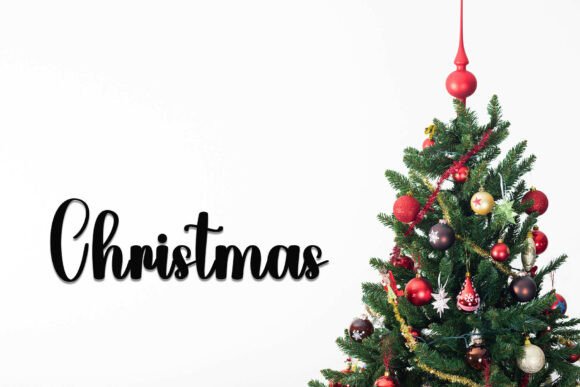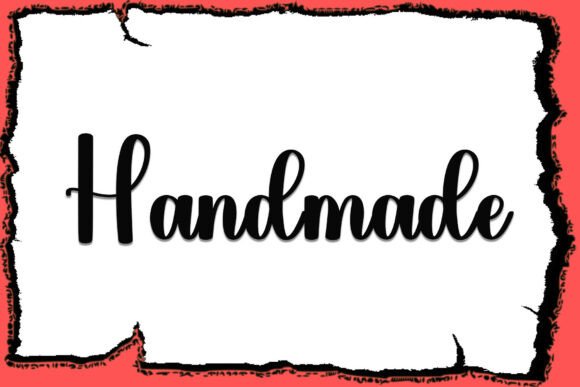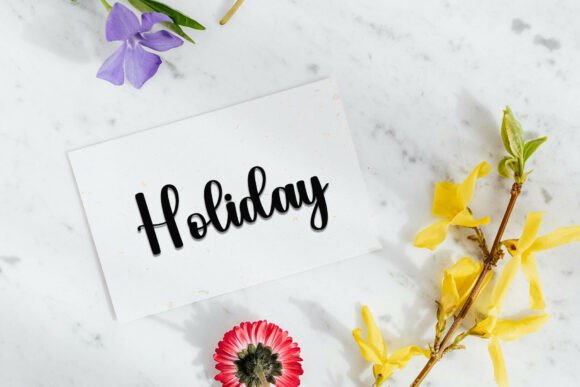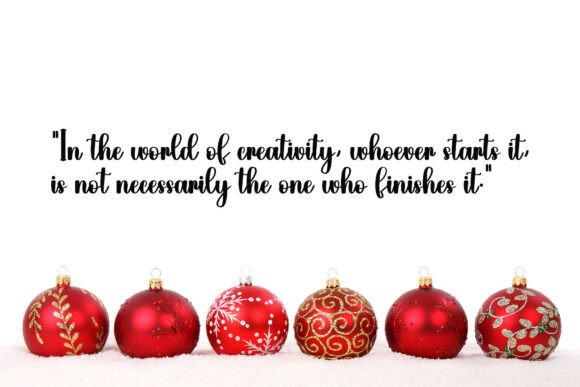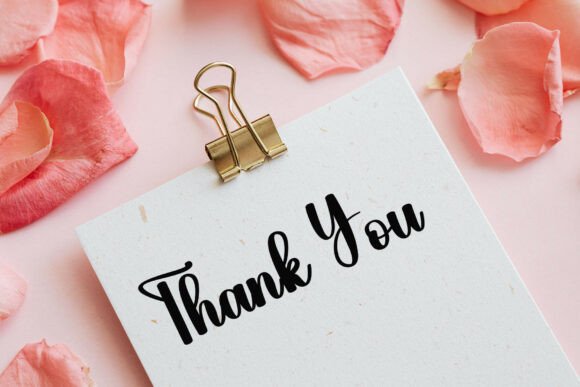
The Perfect Font for Your Next Design Project
Have you ever been scrolling through Pinterest, and a beautifully designed wedding invitation or a stylish fashion blog post catches your eye? You can’t help but wonder what makes it so special – is it the colors, the layout, or perhaps the font itself? For many designers, the right font can make all the difference in elevating a design from ordinary to extraordinary.
Enter the Bestie Font, a sweet and cursive handwritten font that’s sure to bring a touch of joy and romance to any project. Whether you’re working on a branding campaign, creating a wedding invitation, or designing a greeting card, this gentle font is the perfect addition to your design arsenal. Its casual yet elegant vibe makes it an invaluable asset for designers looking to add a personal touch to their work.
Bestie Font Key Features
- Unique Characteristics: This font features a playful, cursive script with a mix of bold and delicate lines, making it perfect for creative and emotive designs.
- Font Weight: The font comes in various weights, from Light to Bold, allowing designers to achieve the desired level of emphasis and contrast in their designs.
Review: Bestie Font
Overall, I’m really enjoying working with the Bestie Font. It has a unique, hand-written feel that adds a touch of personality to any design. ✨ The cursive script is particularly well-suited for titles and headings, and the font’s irregularities give it a more human, relatable feel.
- ✨ Great for creative, emotive designs
- ✨ Unique, hand-written feel
- ✨ Easy to read in larger sizes
However, there are a few limitations to consider. ⚠️ The font can be a bit difficult to read in smaller sizes, particularly when used in body text. Additionally, the font’s irregularities can sometimes make it difficult to achieve perfect alignment or spacing.
- ⚠️ Can be difficult to read in smaller sizes
- ⚠️ Irregularities can make alignment and spacing tricky
- ⚠️ Limited support for international languages
Overall, I’d definitely recommend the Bestie Font for designers looking to add a touch of personality to their work. Just be sure to use it judiciously and balance it with more legible fonts in smaller sizes.
Getting the Most Out of Bestie Font
For the best results, use the Bestie Font in conjunction with bold or italic styles to add emphasis. You can also experiment with different font sizes and colors to create visually appealing designs.
The Bestie Font is ideal for use in social media graphics, blog posts, and other digital content. It’s also suitable for use in wedding invitations, party decorations, and other creative projects.
Alternatives to Bestie Font
Great Vibes is a modern, cursive font that is perfect for creating a friendly and approachable atmosphere. It is ideal for use in headings, titles, and short paragraphs where a touch of elegance is required. Great Vibes is similar to Bestie Font in its playful and whimsical nature, but it has a more refined and sophisticated feel.
Aleo is a elegant and sophisticated script font that is great for creating a sense of luxury and refinement. It is perfect for use in invitations, wedding stationery, and other high-end designs where a touch of elegance is required. Aleo is similar to Bestie Font in its flowing and cursive nature, but it has a more formal and polished feel.